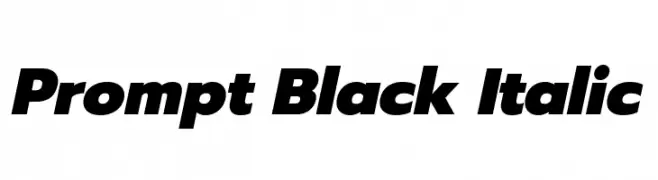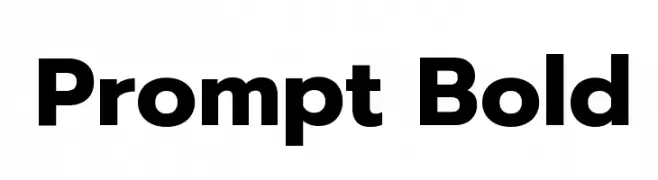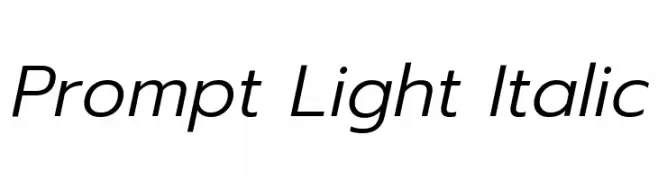
A modern, light sans-serif font with clean lines and balanced proportions.
A modern, bold, and italicized font with a sleek and dynamic appearance.
A bold, italic typeface with a dynamic and modern style.
A sleek, modern, and italicized typeface with thin strokes and geometric shapes.
A modern, geometric sans-serif font with a clean and minimalistic design.
A bold, modern sans-serif font with clean, geometric letterforms.
A modern, semi-bold sans-serif font with a clean and balanced design.
A modern, geometric typeface with thin strokes and balanced spacing.
A bold, modern sans-serif font with rounded, geometric characters.
A modern, italic sans-serif font with medium weight and clean lines.
A sleek, thin, and italicized font with a modern and minimalist design.
A modern, geometric sans-serif font with uniform stroke width and clear readability.
A bold, modern sans-serif font with clean lines and balanced proportions.
A modern, bold, and italicized typeface with clean lines and a dynamic slant.
A modern, italic font with smooth curves and clean lines, perfect for versatile design applications.
A modern sans-serif font with geometric shapes and uniform strokes.
A sleek, modern sans-serif font with a light italic style.
A modern, italic typeface with balanced proportions and a sleek design.
A sleek, modern typeface with clean lines and balanced proportions.
A modern, geometric sans-serif font with clean lines and balanced proportions.
A modern, light sans-serif font with clean lines and balanced proportions.
A sleek, semi-bold italic font with a modern and elegant style.
A sleek, extra-light italic font with a modern and elegant style.
A modern sans-serif font with a semi-bold weight and slightly condensed width.
A modern, bold, italic font with medium contrast and smooth strokes.
A modern, semi-bold font with a clean, geometric design.
A modern, italic font with clean lines and consistent stroke width.
A sleek, extra-light italic font with a modern and elegant style.
A modern, geometric sans-serif typeface with clean lines and uniform strokes.